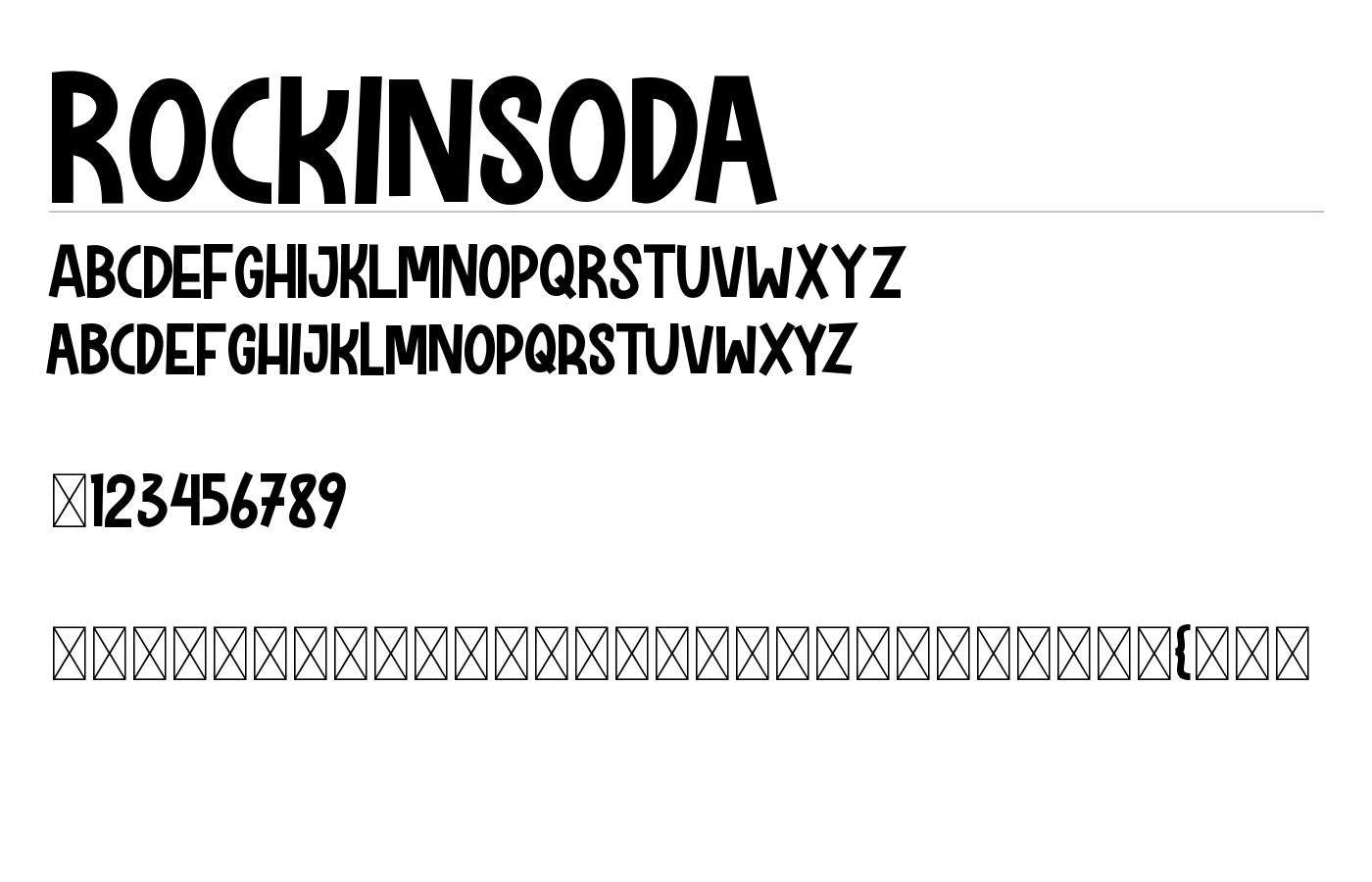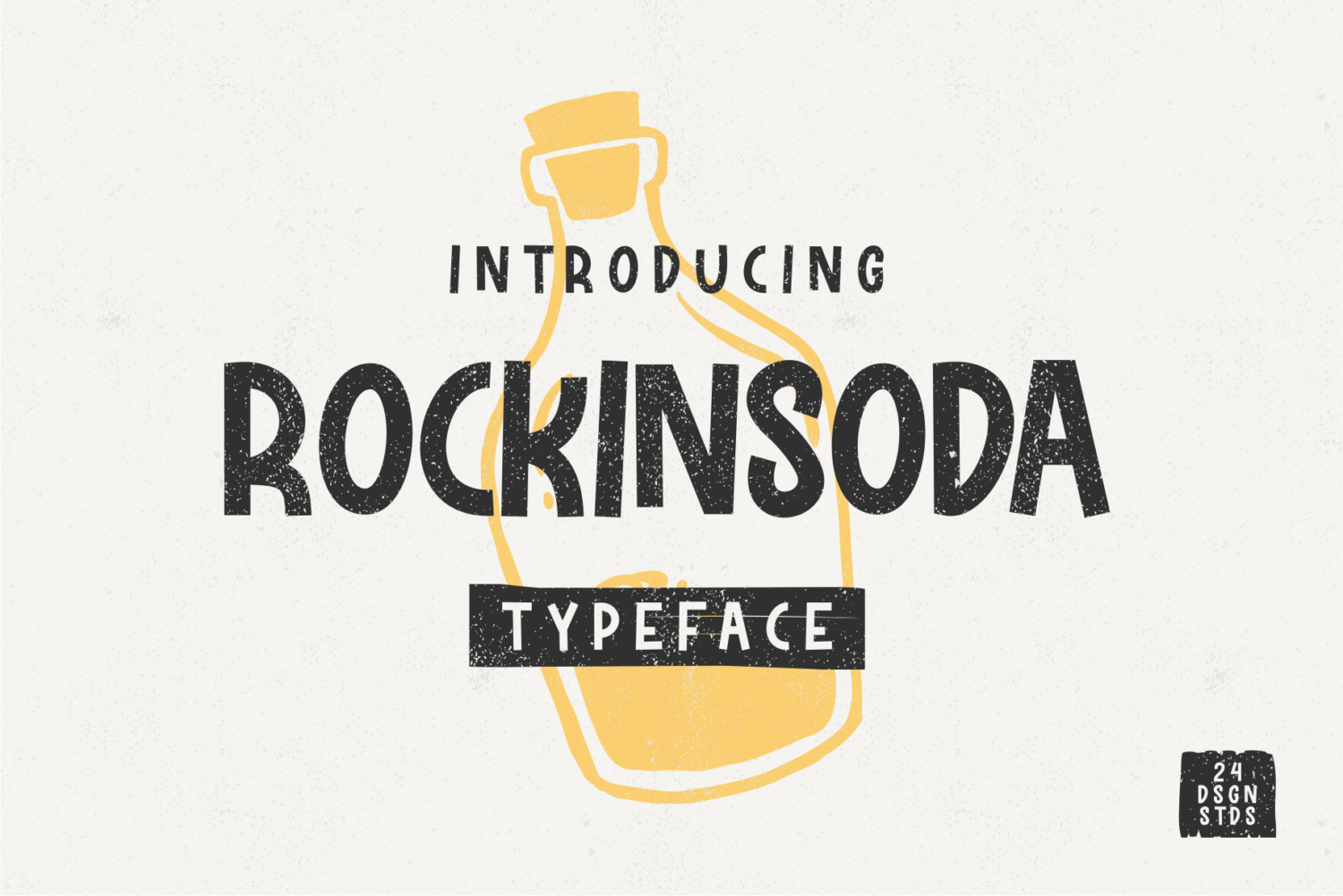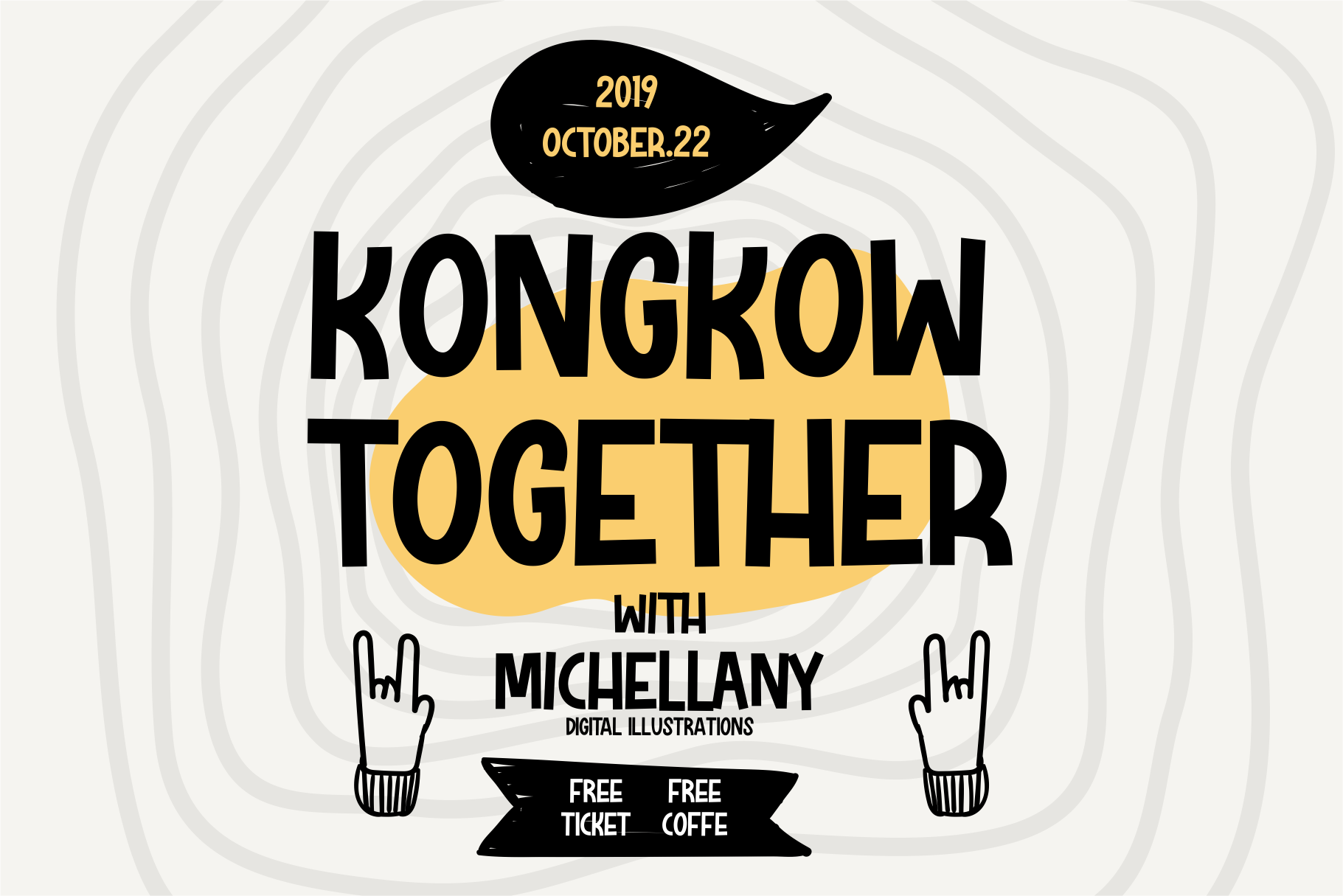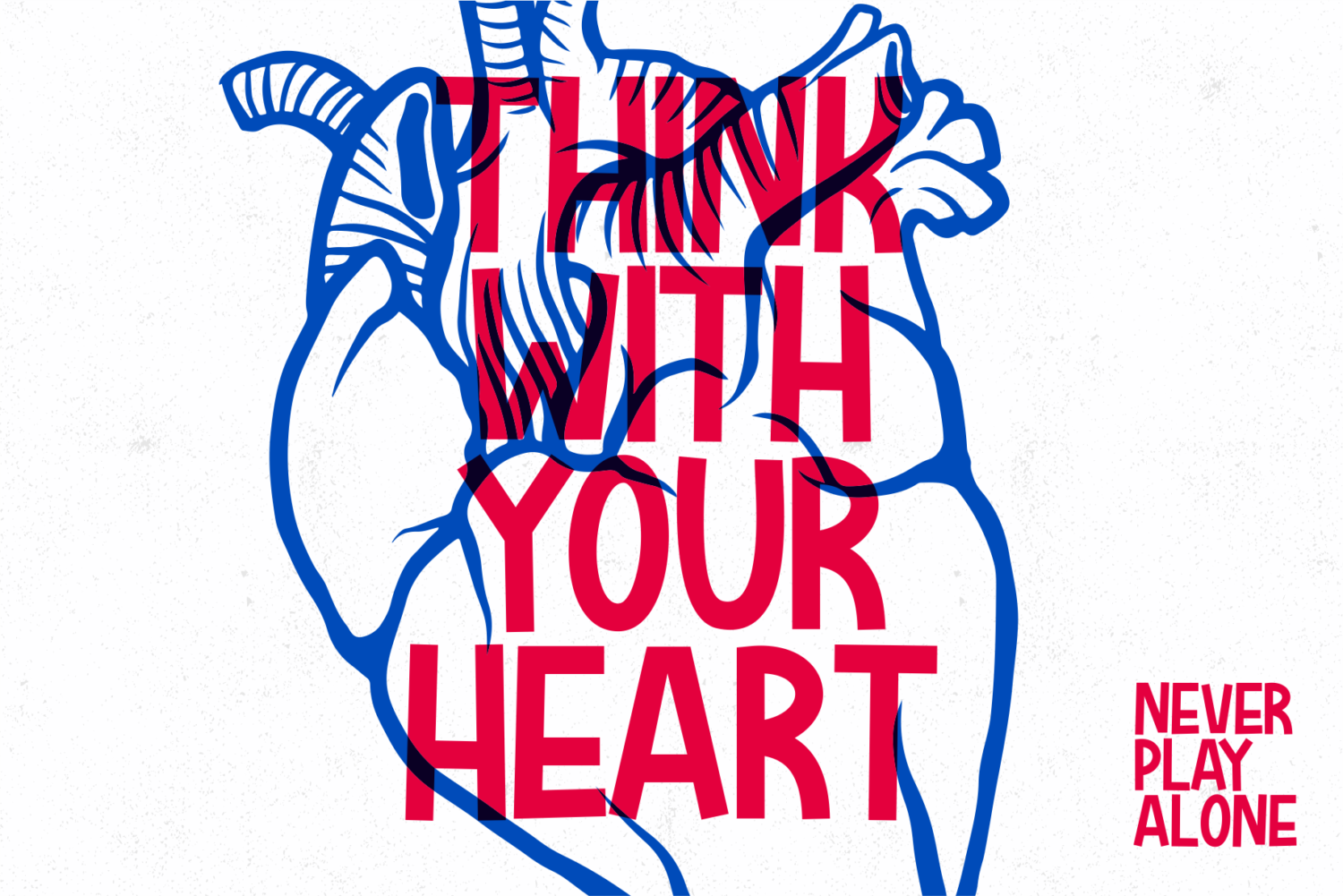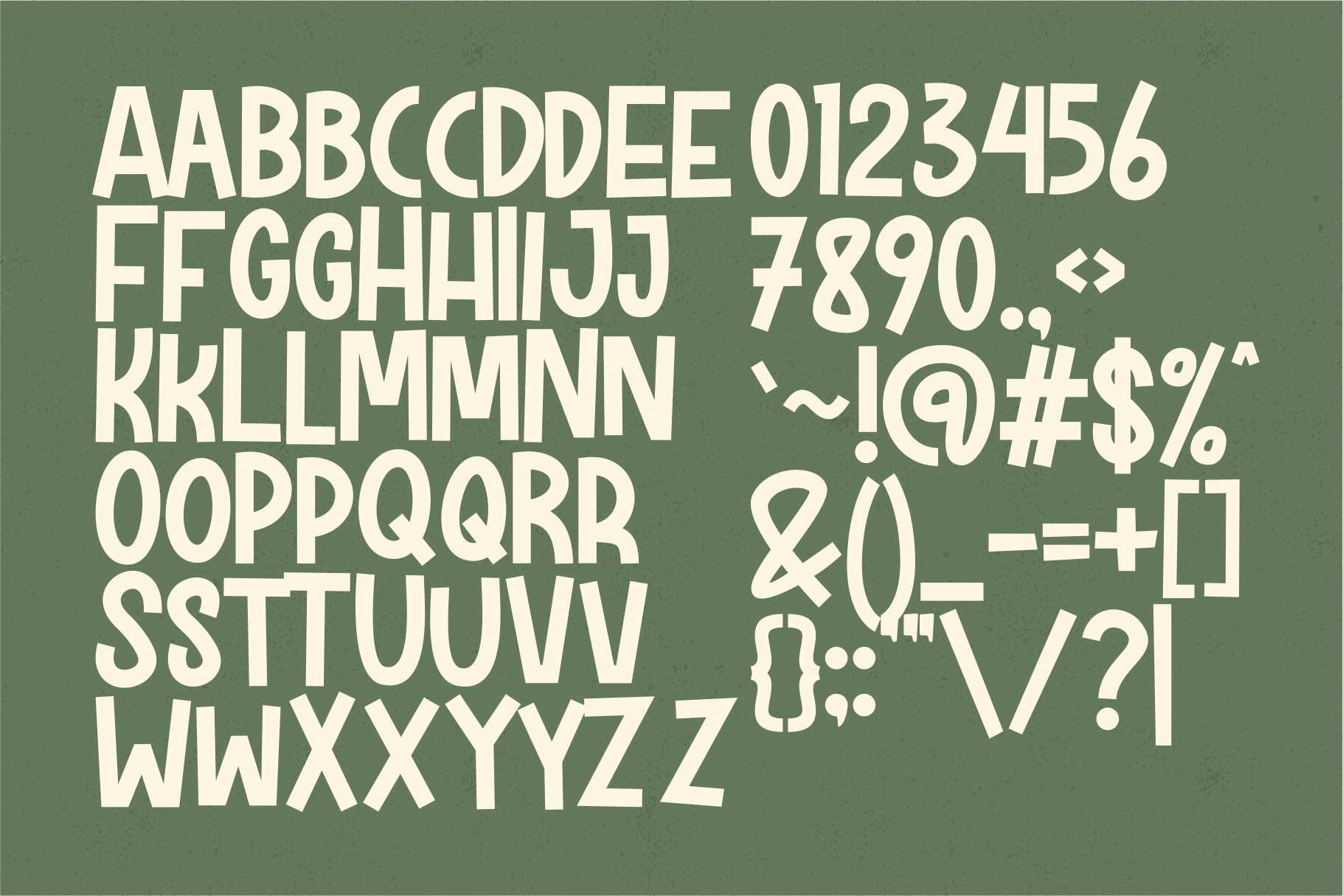
Rockinsoda is a playful and bold sans serif font with a quirky, hand-drawn feel. Its slightly irregular letter shapes and strong vertical strokes give it a lively, energetic personality that works well for fun and casual branding, posters, and headlines where a creative, approachable tone is desired. This font stands out with its unique character, making it perfect for projects looking to convey friendliness and originality.
Rockinsoda
About Rockinsoda